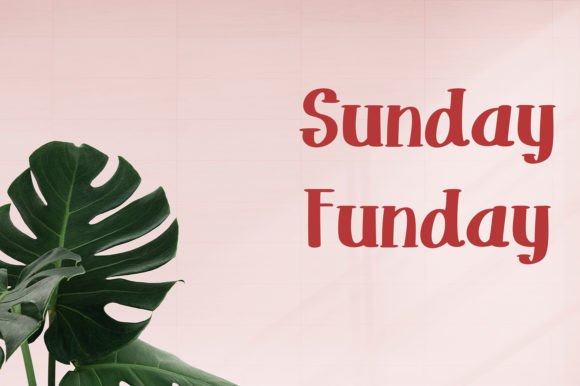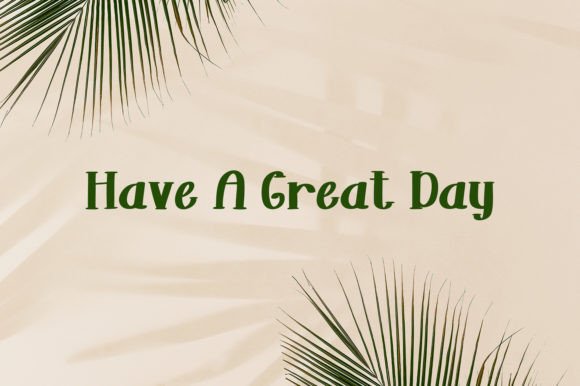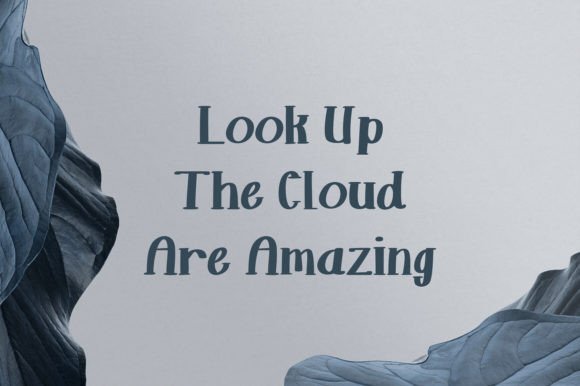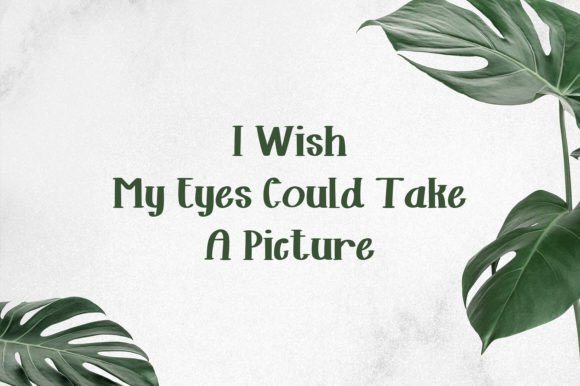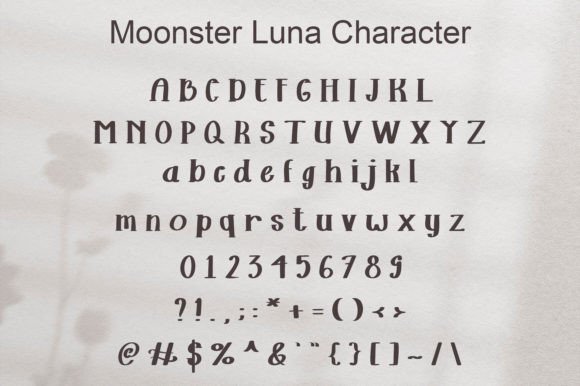
Introduction to Moonster Luna Font
Moonster Luna is a cool, incredibly cute, and bubbly display font.
Add it to each of your party invitations, swimming gatherings, or pretty much any design that requires a touch of youth and joy Moonster Luna is the epitome of functionality and aesthetic appeal harmoniously converging.
Key Features of Moonster Luna Font